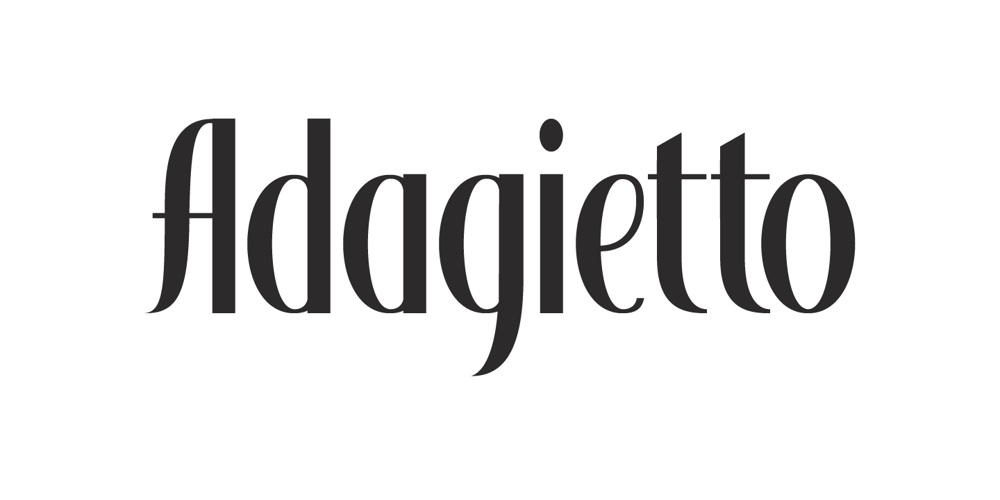
Adagietto Font Family was designed by David Kerkhoff and published by Hanoded. Adagietto contains 2 styles and family package options. Adagietto is a musical term and means: ‘fairly slow’. I wasn’t in a rush to create this font, so the name kind of suits! Adagietto is a classic font, ideally suited for posters, book covers and product packaging – and just about everything that needs a classy look.